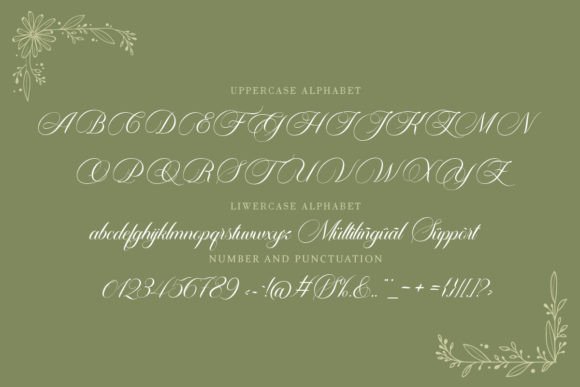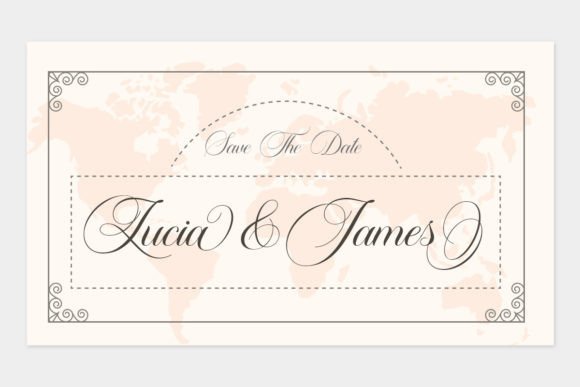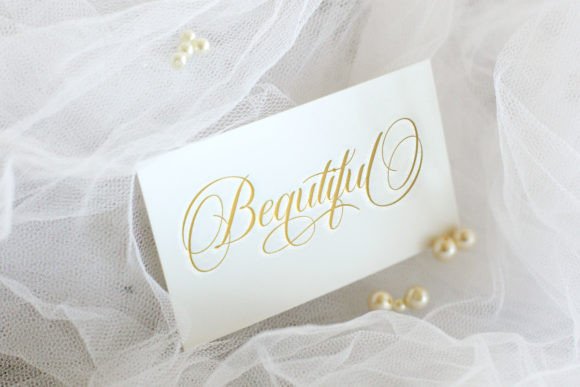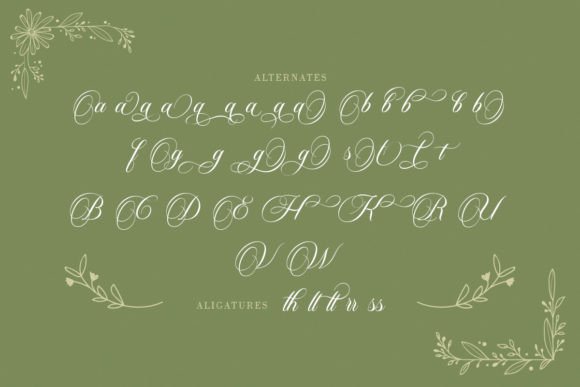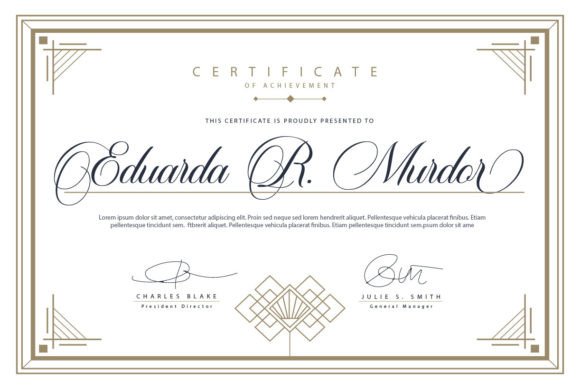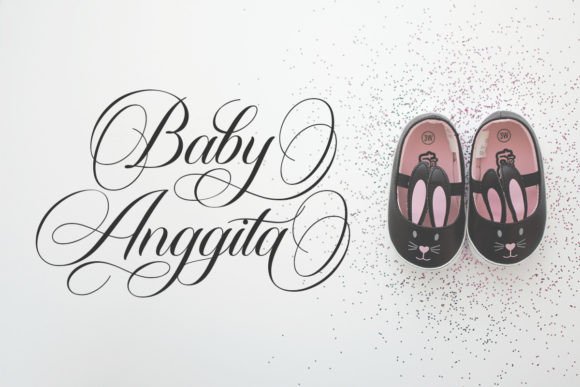
Introducing Carista Calligraphy Font: Elevate Your Designs with Elegance and Sophistication
Are you a designer or crafter looking for a font that exudes classic elegance with a modern twist? Look no further than Carista Calligraphy Font. This stunning font is perfect for creating beautiful wedding media, book covers, greeting cards, logos, branding, business cards, certificates, and any other design work that requires a touch of sophistication and formality.
A Classic Font with a Modern Edge
Carista Calligraphy Font is a timeless classic that has been crafted with precision and attention to detail. Its traditional calligraphy style is infused with modern elements, making it a versatile font that can be used in a variety of design projects. Whether you’re creating a wedding invitation, a book cover, or a logo, Carista Calligraphy Font is sure to impress.
One of the best things about Carista Calligraphy Font is its incredible versatility. Here are just a few examples of the many design projects where this font can shine:
- Wedding Media: Create beautiful wedding invitations, save-the-date cards, and ceremony programs that set the tone for a stylish and elegant wedding.
- Book Covers: Add a touch of sophistication to your book covers and make them stand out on bookshelves.
- Greeting Cards: Create stunning greeting cards for special occasions like birthdays, anniversaries, and holidays.
- Logos and Branding: Use Carista Calligraphy Font to create a memorable logo and brand identity that exudes elegance and refinement.
- Business Cards: Make a lasting impression with beautifully designed business cards that showcase your professionalism and style.
- Certificates: Create official-looking certificates that are perfect for awards, diplomas, and other formal documents.
Unlock the Full Potential of Carista Calligraphy Font
Carista Calligraphy Font comes with a wealth of OpenType features that allow you to take your designs to the next level. With its elegant lines, beautiful swashes, and intricate details, this font is sure to add a touch of fun and joy to your design work.
Some of the key features of Carista Calligraphy Font include:
- OpenType Features: Access a range of advanced typographic features, including ligatures, swashes, and stylistic alternates.
- Elegant Lines: Enjoy the beautiful, flowing lines of Carista Calligraphy Font, perfect for creating elegant and sophisticated designs.
- Beautiful Swashes: Add a touch of drama and flair to your designs with the font’s stunning swashes and flourishes.
Carista Calligraphy Font is a stunning font that offers the perfect blend of classic elegance and modern sophistication. With its incredible versatility, beautiful lines, and wealth of OpenType features, this font is sure to become a go-to choice for designers and crafters. Whether you’re creating wedding media, book covers, logos, or any other design project, Carista Calligraphy Font is the perfect choice. So why wait? Try Carista Calligraphy Font today and discover a world of elegant design possibilities!